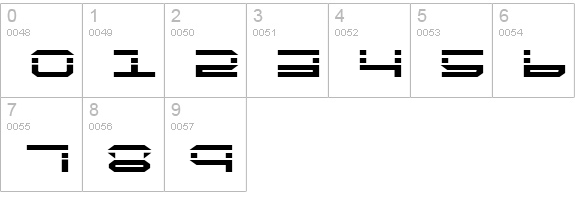
QuickQuick Bold is a strong, high-contrast variant in the QuickQuick typeface family \xE2\x80\x94 well suited to headlines, attention-grabbing titles, and strong calls-to-action.
Introducing QuickQuick Bold, a striking and attention-grabbing font that exudes confidence and boldness. With its strong and assertive letterforms, QuickQuick Bold is perfect for making a powerful statement in your designs. This versatile font can be used in a variety of contexts, from headlines and logos to promotional materials and branding. Its clean lines and distinct shapes make it easily legible, ensuring that your message is conveyed with clarity and impact. QuickQuick Bold is not only visually striking but also highly customizable. Its bold weight allows for easy emphasis on key elements, while its versatile nature lends itself to a range of design styles. Whether you're aiming for a modern and edgy look or a classic and timeless feel, QuickQuick Bold can adapt to suit your needs. What sets QuickQuick Bold apart is its availability as a free download at FontsMarket.com. You can now easily access this powerful font without any cost, allowing you to enhance your designs without breaking the bank. Embrace the freedom to create bold and impactful visuals with QuickQuick Bold, available exclusively at FontsMarket.com. Download QuickQuick Bold today and unlock the potential to make a lasting impression with your designs. Don't miss out on this incredible opportunity to elevate your creativity and effortlessly captivate your audience. Whether you're a designer, marketer, or simply someone who appreciates great typography, QuickQuick Bold is a must-have addition to your font collection.